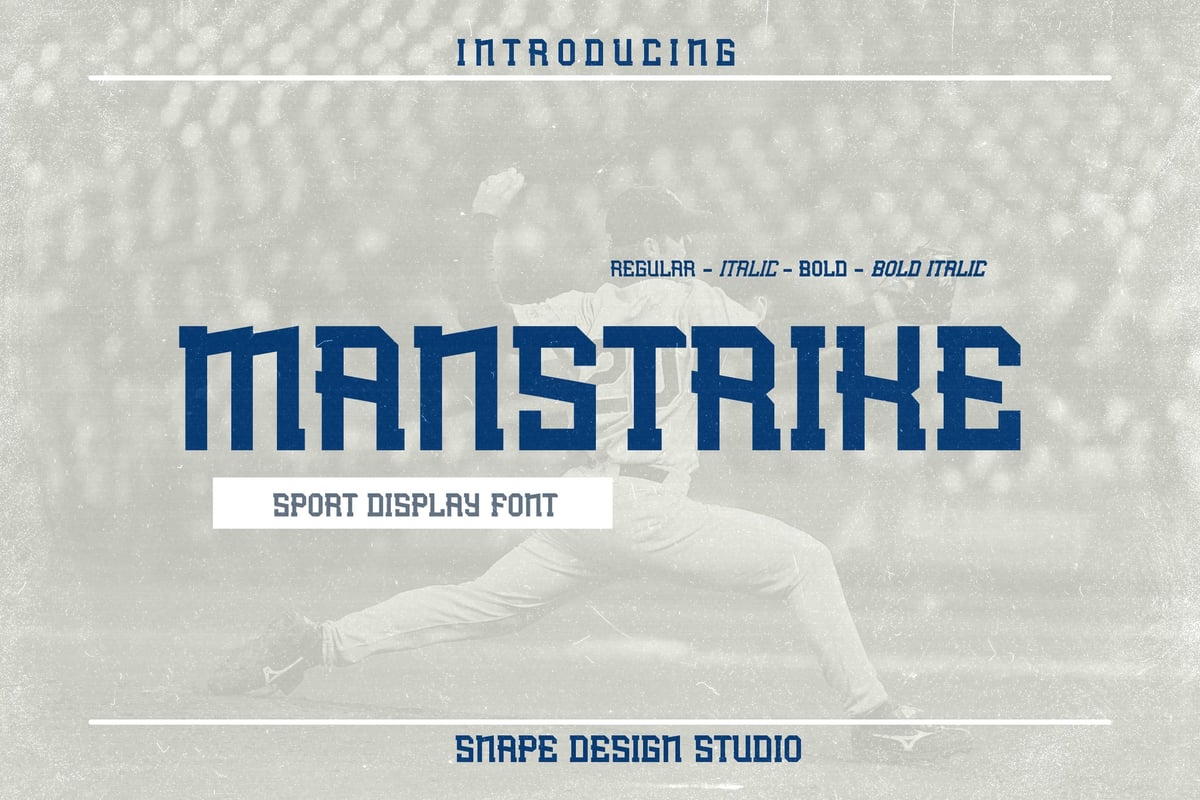
Manstrike - Sport Font
Dominate your sports designs with Manstrike - the bold typeface that commands attention and delivers powerful impact. Manstrike is a sport font engineered to highlight any project requiring a bold, powerful aesthetic. This dynamic typeface adds vibrant energy to your sport-inspired designs, making them stand out from the competition. Perfect for sport design, team branding, jersey lettering, league graphics, movie titles, documentaries, films, logos, posters, games, book covers, headlines, and c...